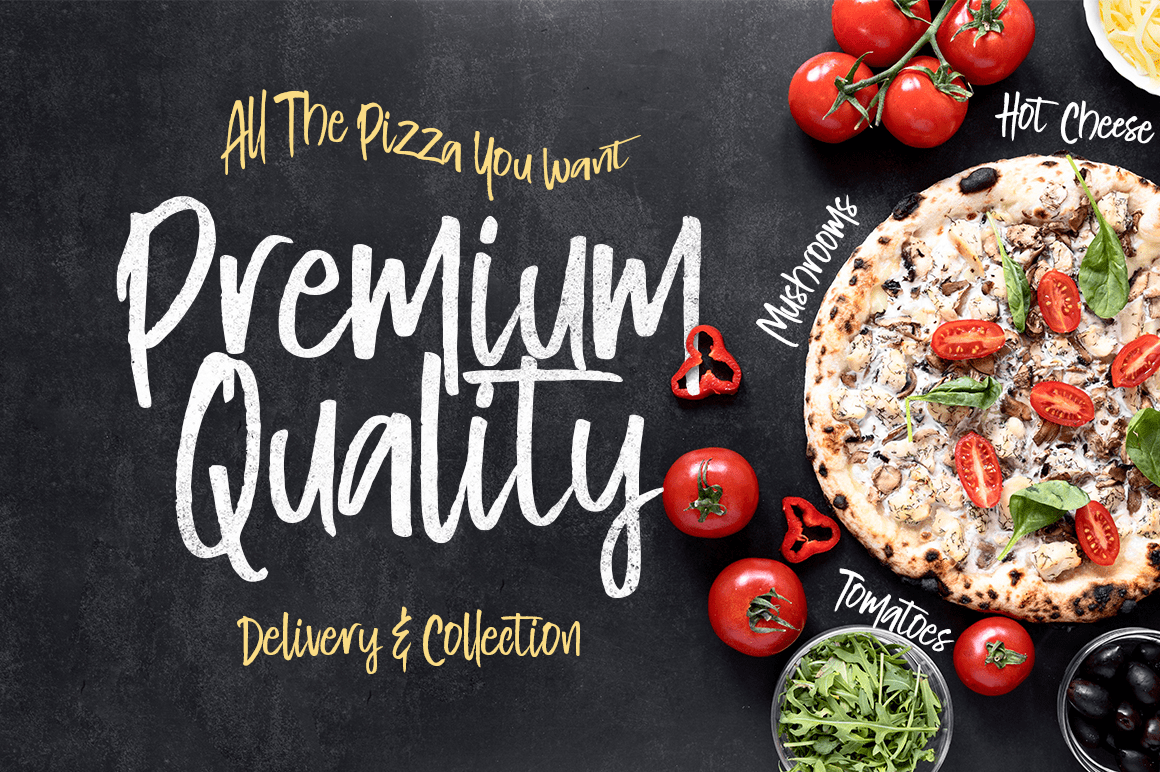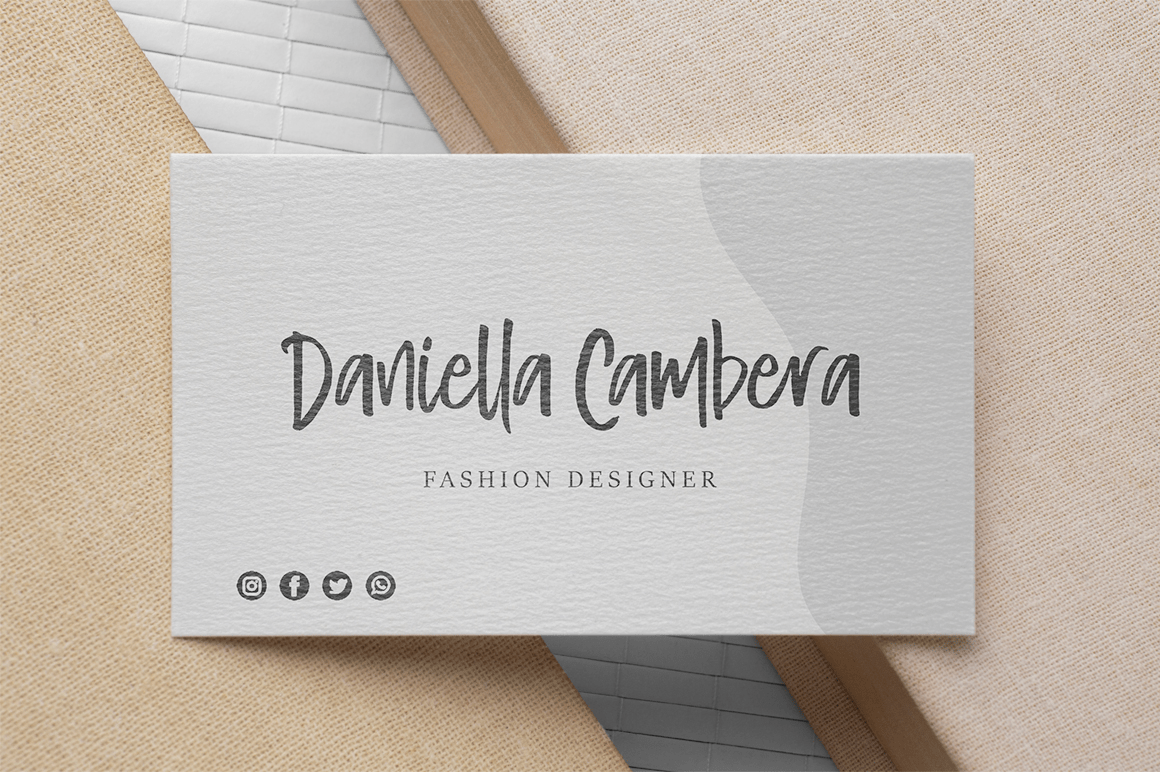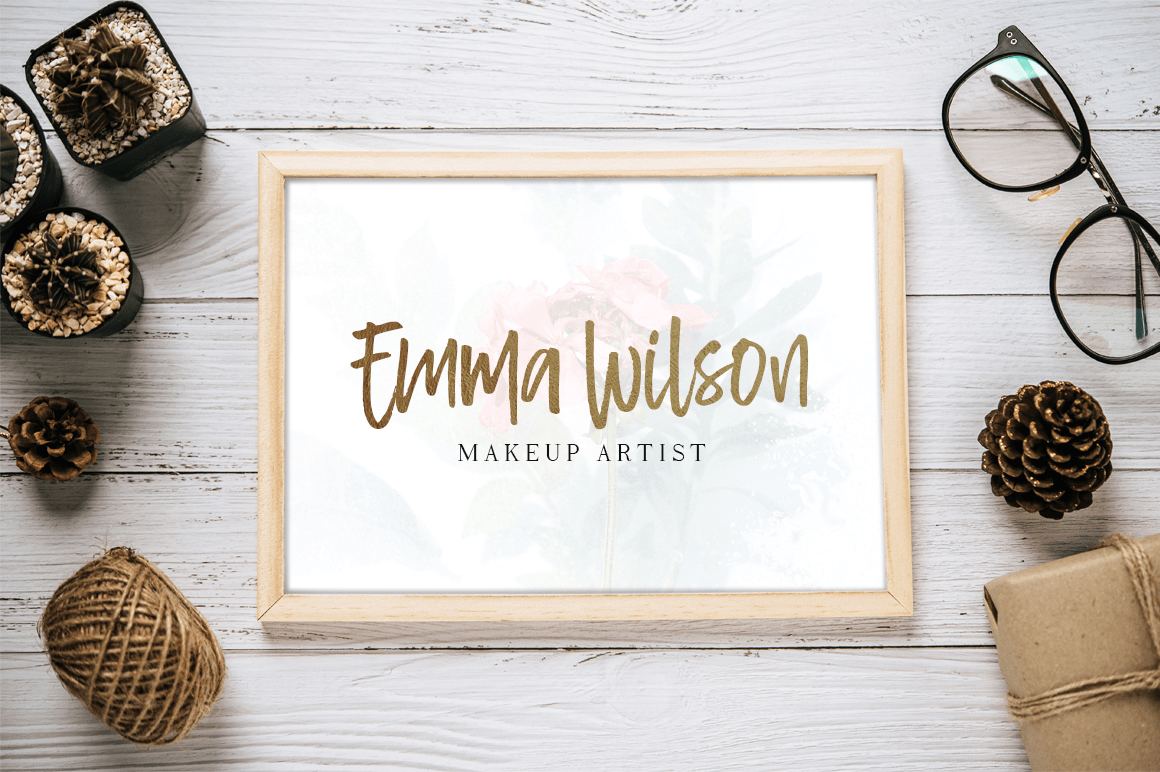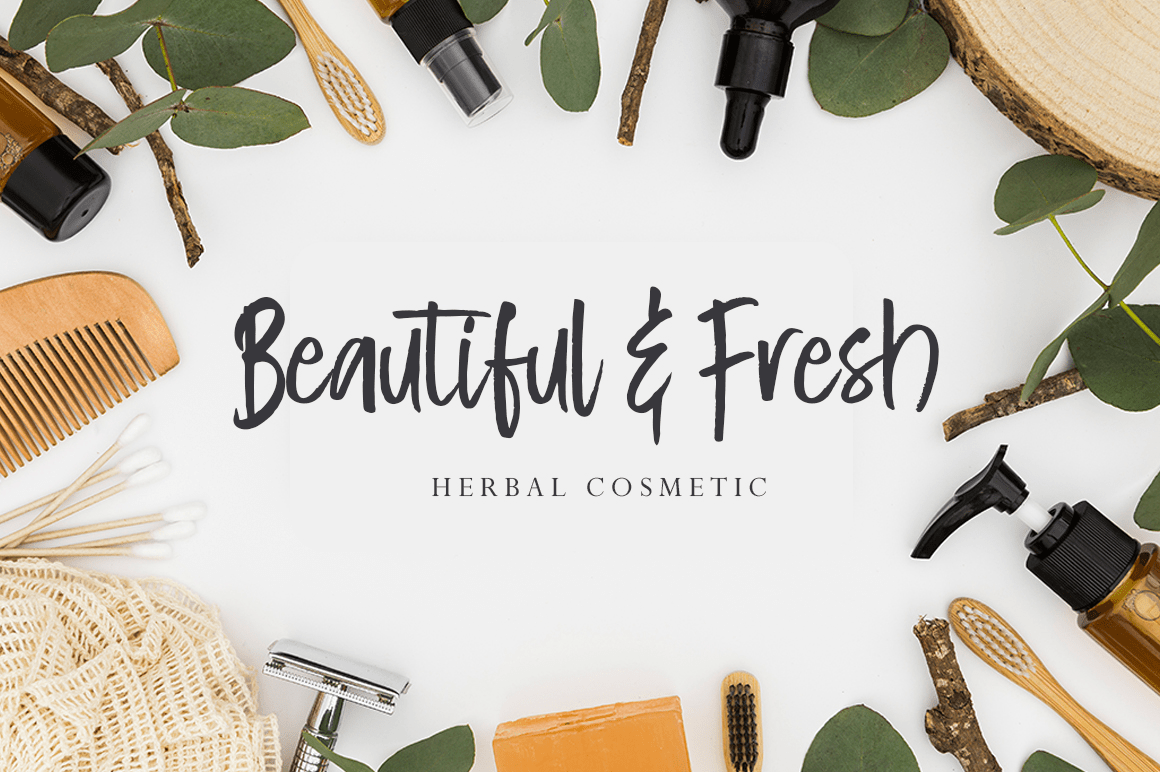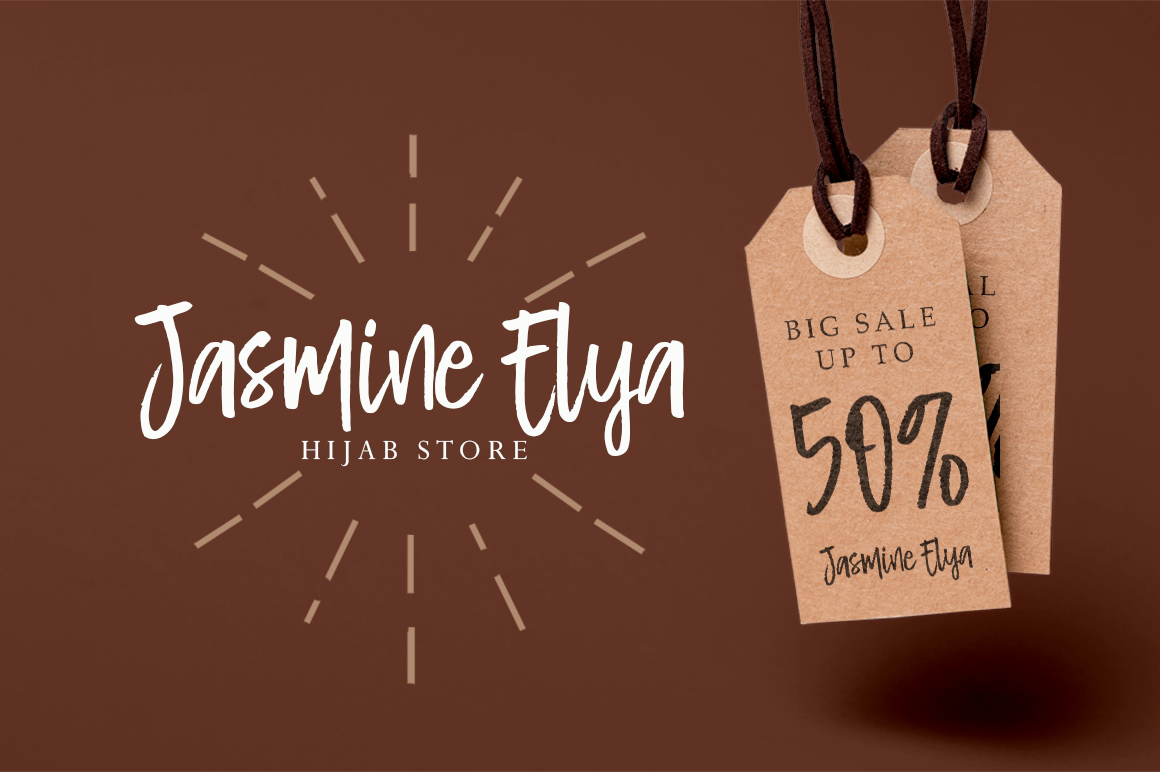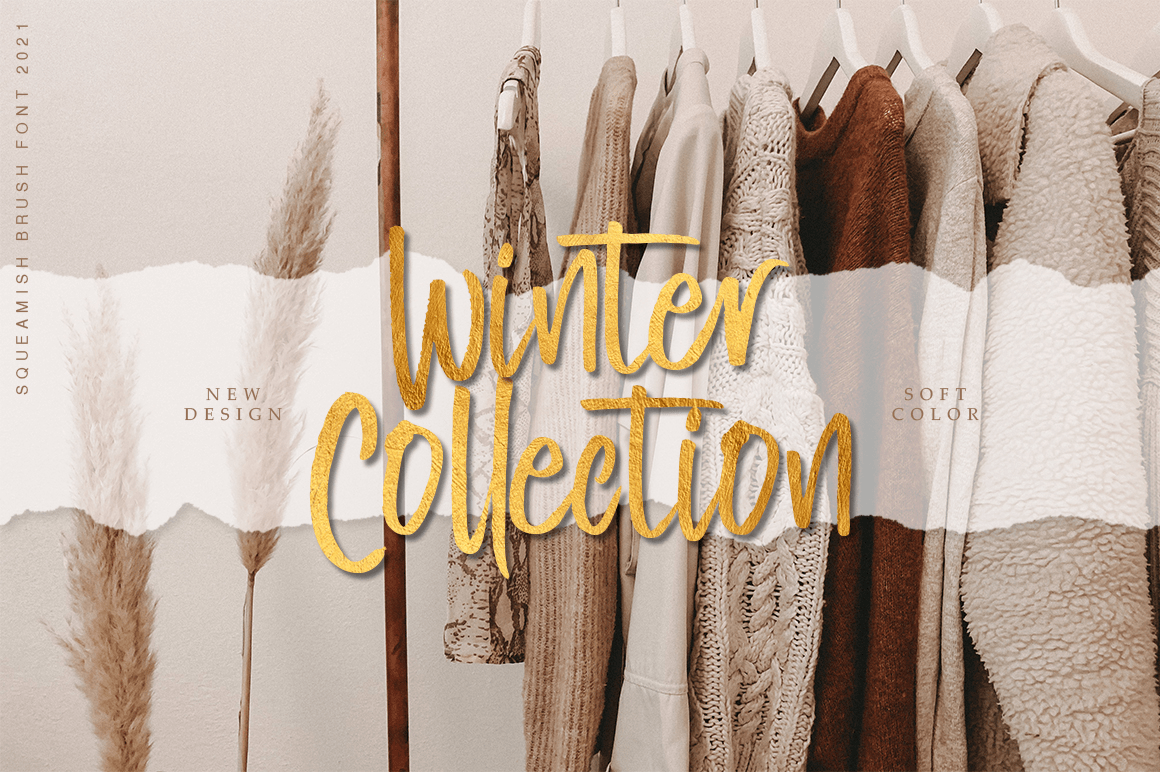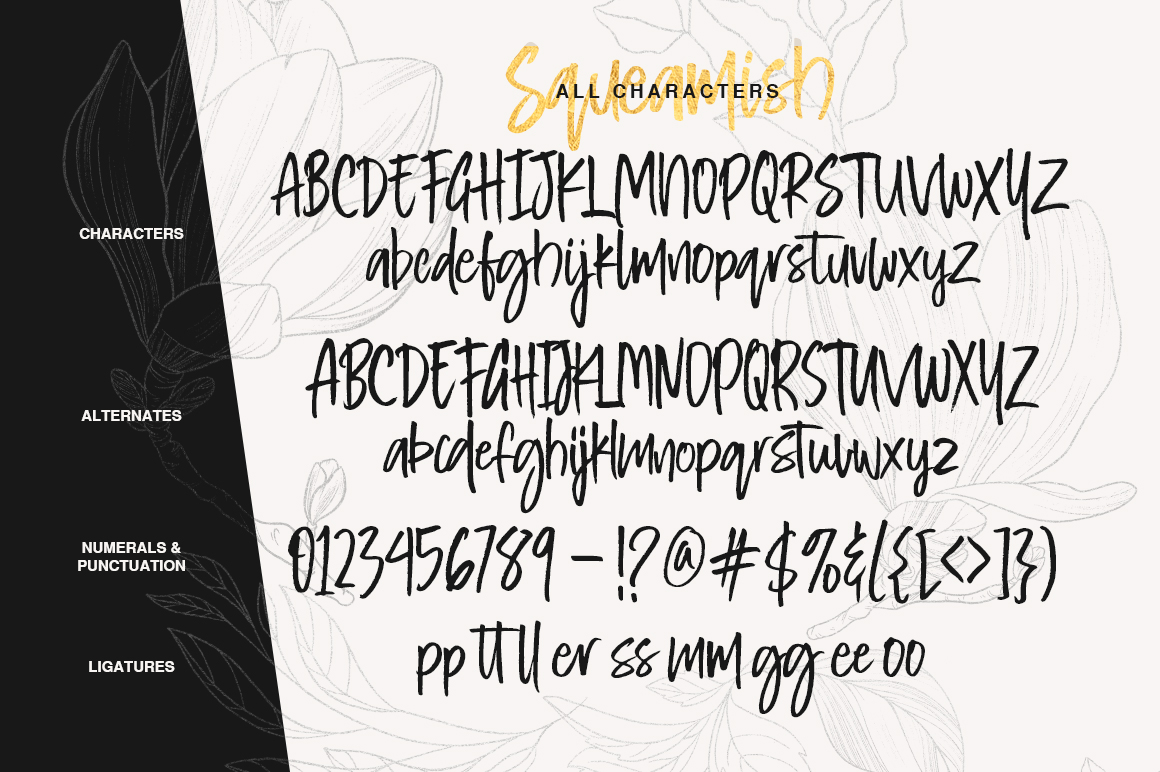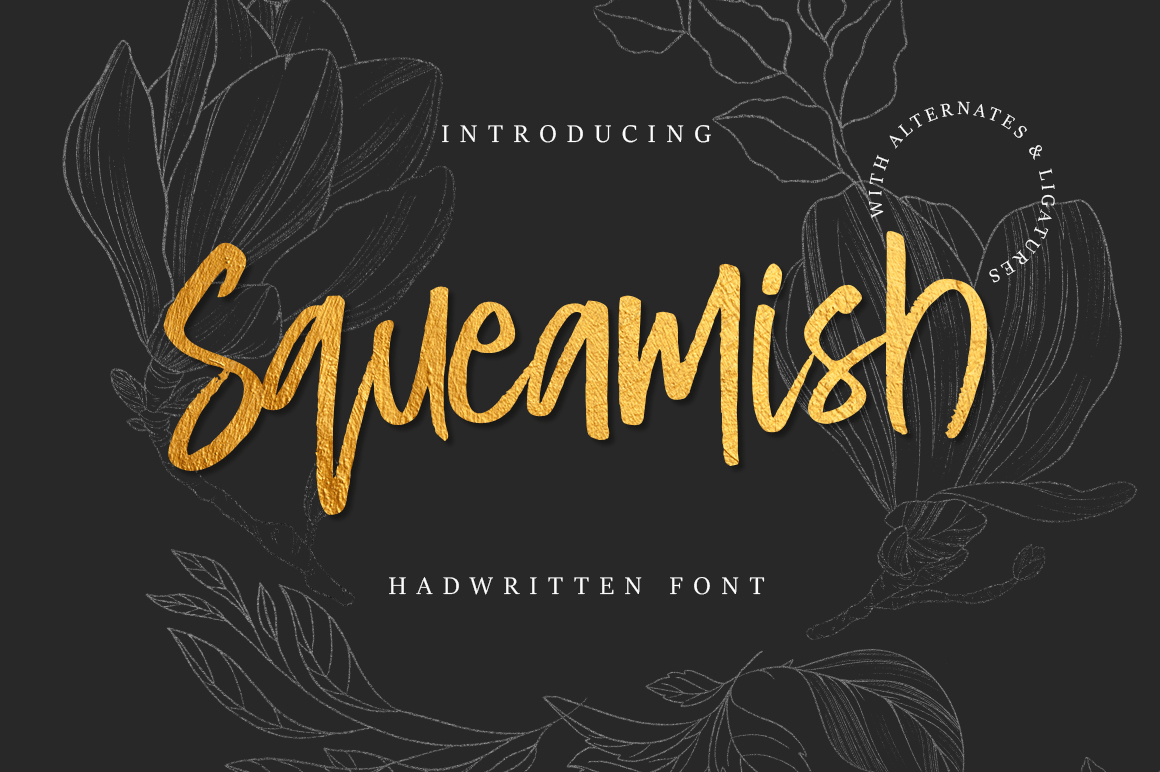
About Squeamish
Thanks for checking out Squeamish! A fabulously fun yet elegant script font with tons of energy, allowing you to create beautiful hand-made typography in an instant. With extra bouncy curves & loops, Squeamish is guaranteed to make your text stand out…